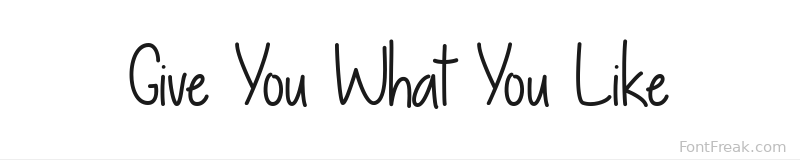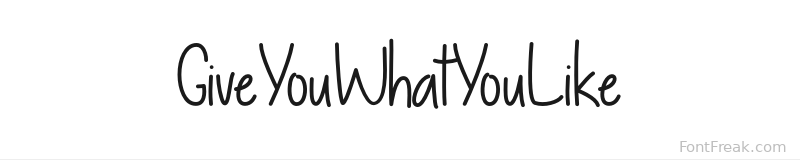
GiveYouWhatYouLike
Give You What You Like
About GiveYouWhatYouLike
The GiveYouWhatYouLike font, designed by Misti Hammers, is a charming handwritten typeface that captures a sense of warmth and personality. This font features fluid strokes and a playful aesthetic, making it ideal for a variety of creative projects. The stroke weight varies slightly, providing a delightful contrast that enhances its handwritten appearance. The spacing is generous, allowing for clarity and readability, which is essential for both digital and print applications.
This versatile font shines in several specific use cases. It is perfect for wedding invitations, where its romantic flair can set the tone for a special day. Additionally, it works wonderfully for greeting cards, capturing heartfelt messages in a visually appealing manner. Restaurant menus will benefit from its inviting nature, encouraging patrons to explore the offerings. Social media graphics and blog headers are other great applications, as the font’s unique style can attract attention and engage audiences effectively.
The target audience for the GiveYouWhatYouLike font includes graphic designers seeking to add a personal touch to their work, small business owners looking to create appealing branding materials, and content creators aiming to enhance their visual storytelling.
What sets the GiveYouWhatYouLike font apart is its ability to evoke emotion while remaining highly functional. It bridges the gap between casual and professional, making it suitable for both personal and commercial projects. With its free download option, users can easily incorporate this delightful typeface into their designs, ensuring that they can give their audiences exactly what they like. Embrace the charm of GiveYouWhatYouLike and elevate your creative endeavors with this distinctive font.